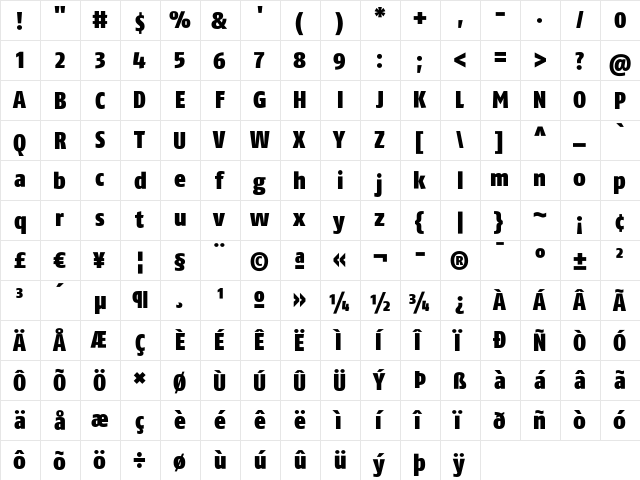
FagoCoLf-Black Bold Font Preview
FagoCoLf-Black Bold
Design Context for FagoCoLf-Black Typeface
FagoCoLf-Black is a composed and adaptable typeface that performs quietly and consistently across a wide range of design contexts. The heavy weight commands attention and anchors typographic hierarchies.